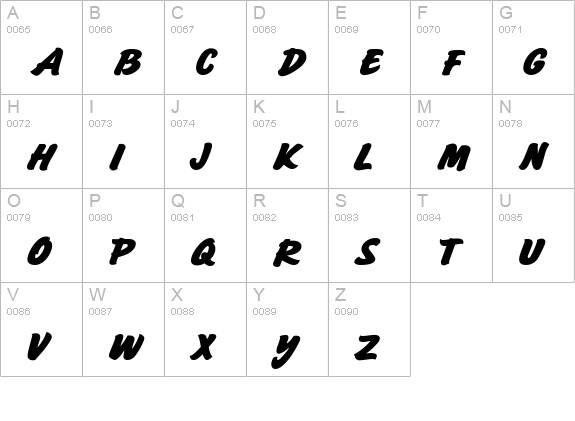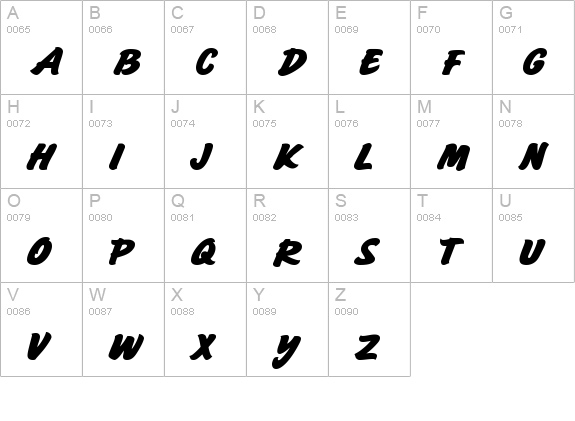
Sayer Script MN Black Font Details
Sayer Script MN Black is a maximum-weight, dramatic variant in the Sayer typeface family \xE2\x80\x94 well suited to maximum-impact headlines, posters, and packaging.
Sayer Script MN Black is a striking and elegant font that exudes sophistication and charm. With its bold and fluid strokes, this font adds a touch of luxury to any design project. Whether you're creating invitations, posters, or branding materials, Sayer Script MN Black is sure to make a statement. Best of all, this exquisite font is available for free download at FontsMarket.com. Embrace the beauty and versatility of Sayer Script MN Black and elevate your designs to new heights.